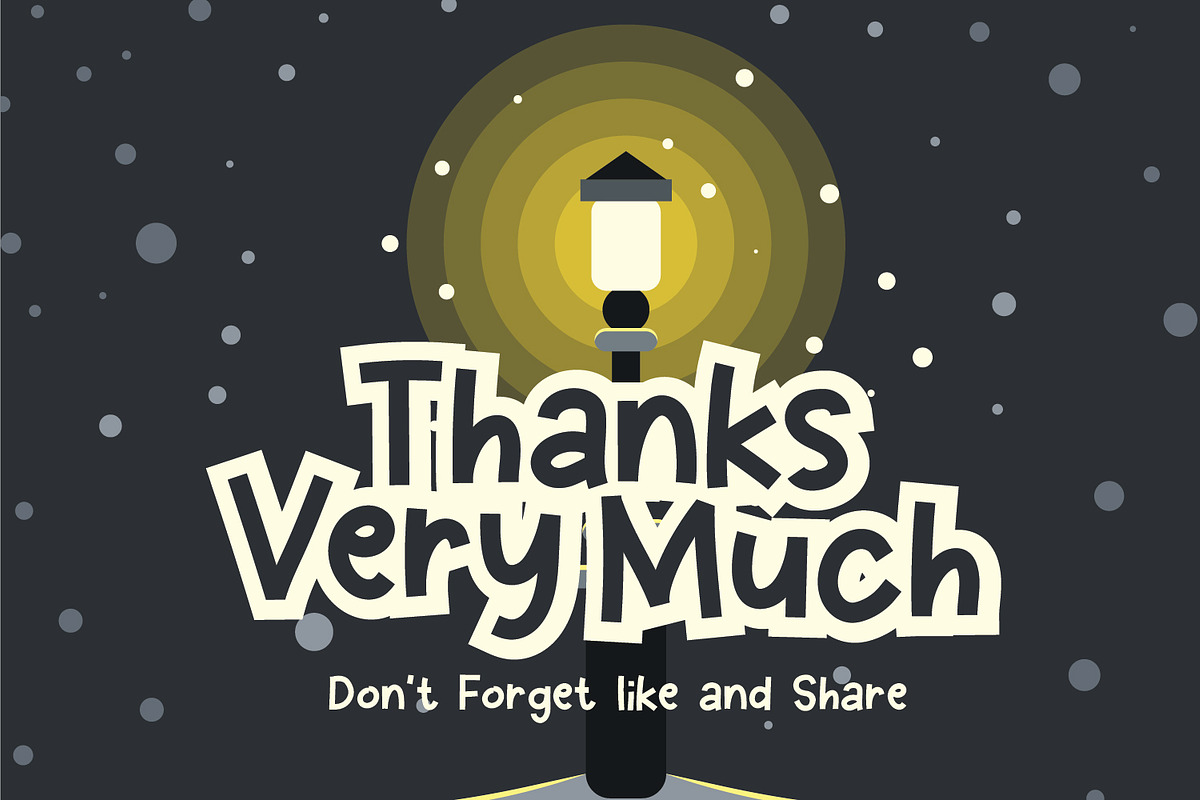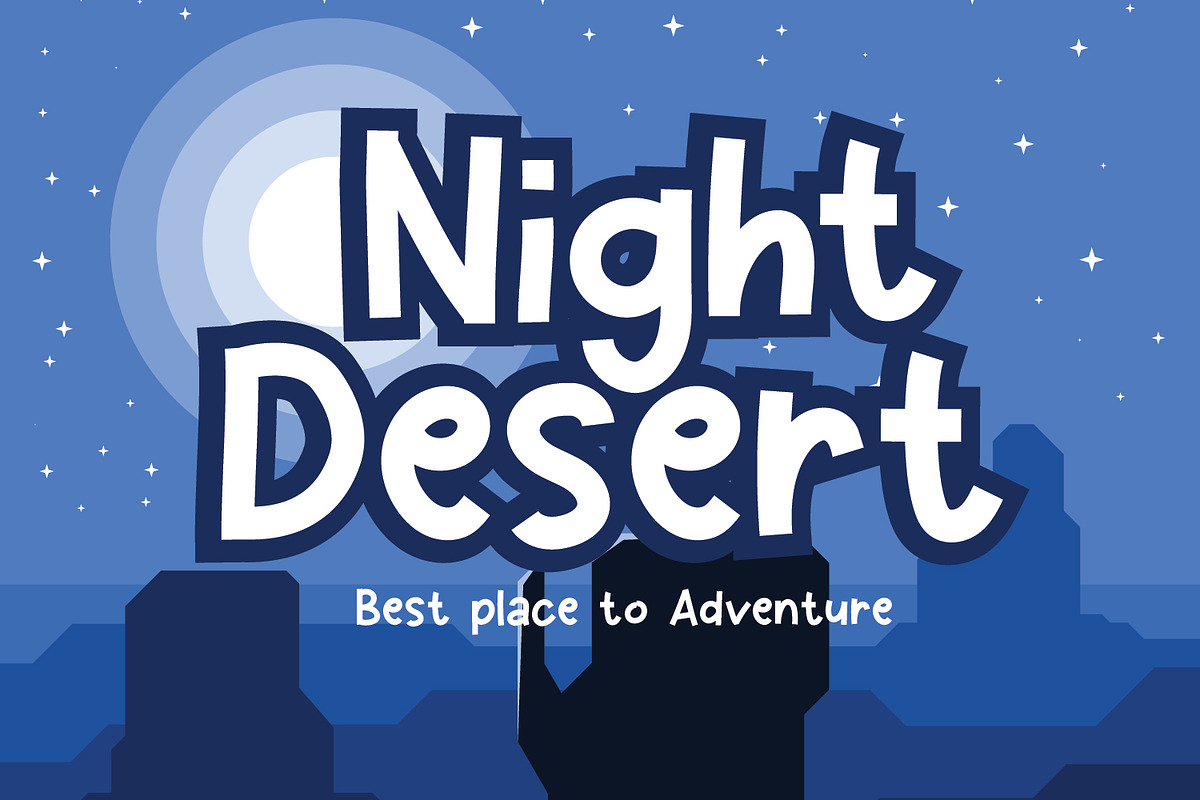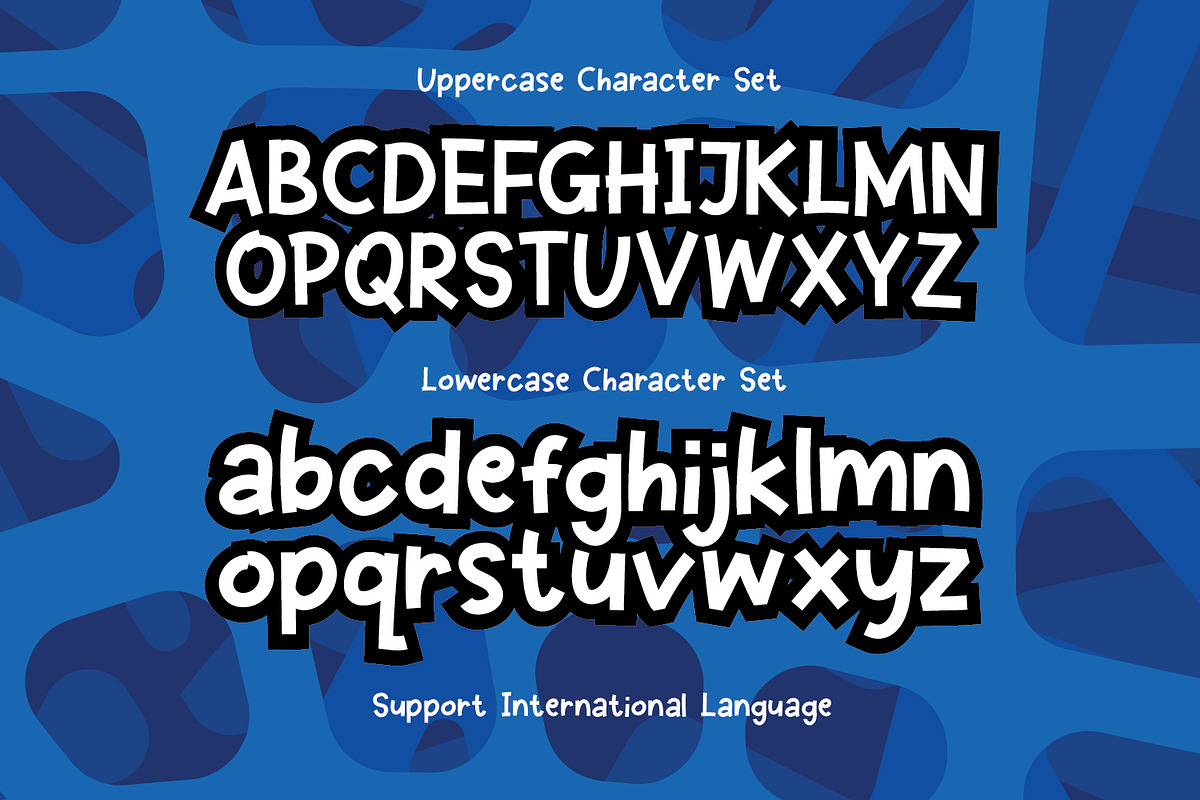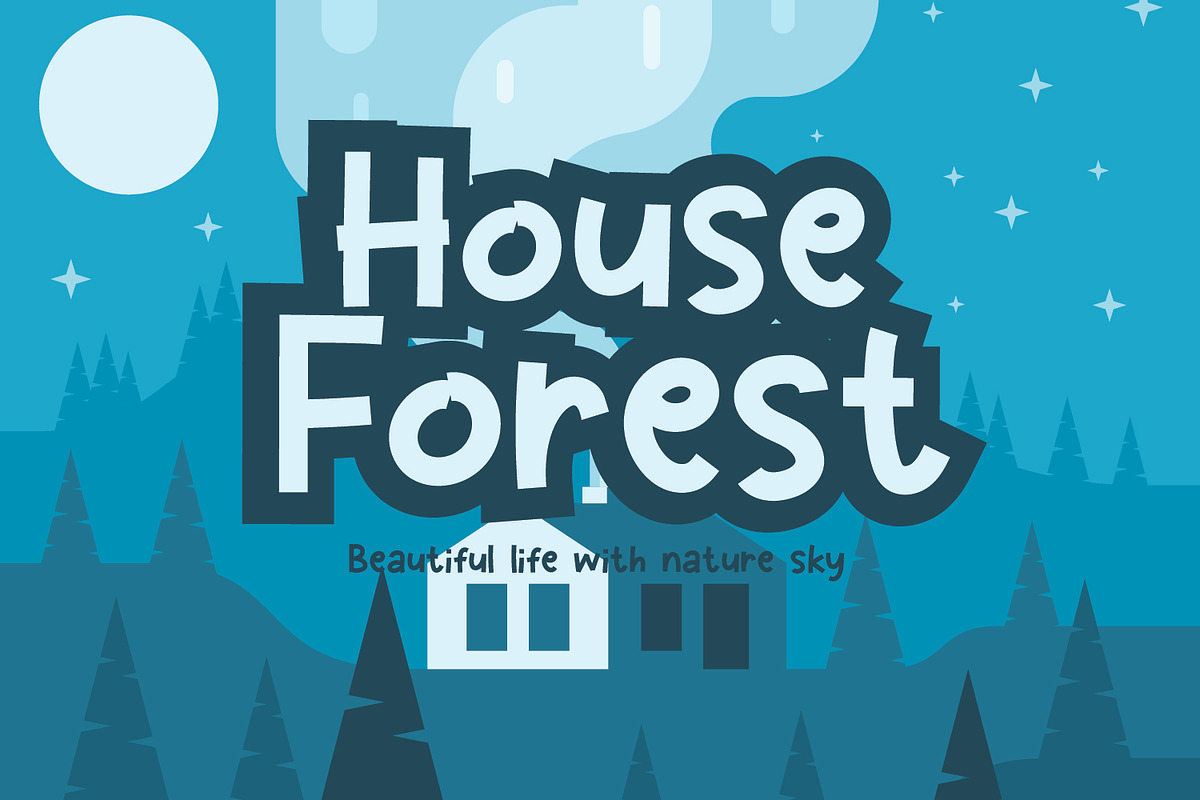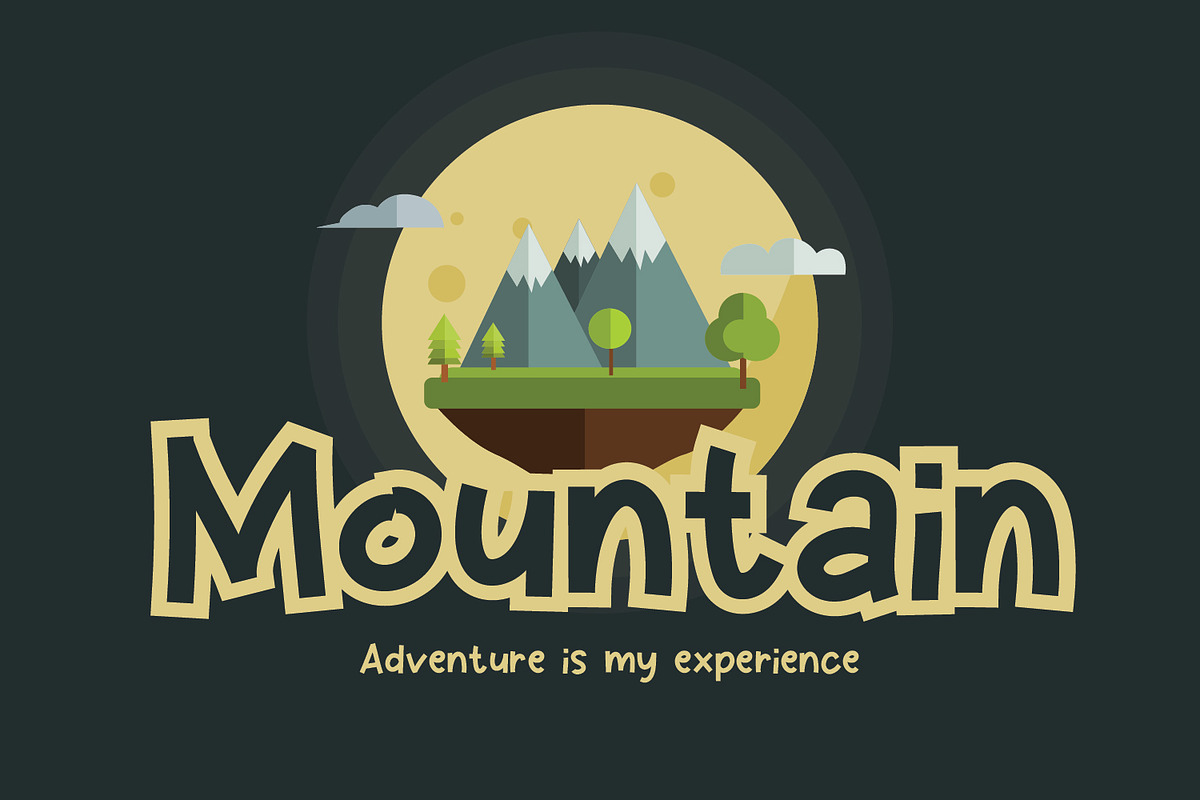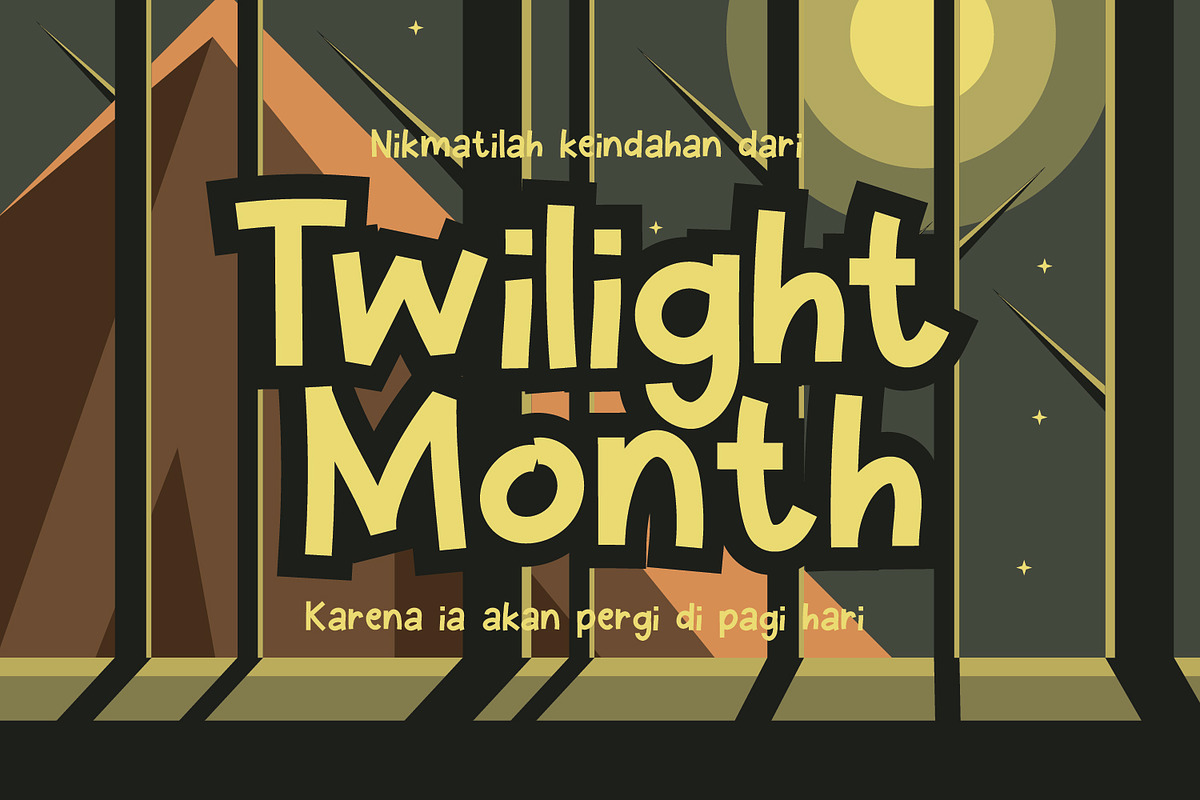
Secret Thief - A Cute Sans Font
We bring back cute fonts. This funny font is formed from a unique style of letters. Hope you like it. it's perfect for logos, name card, magazine layouts, invitations, headers, or even large-scale artwork.
1. Secret Thief- A Cute sans serif font including upper & lowercase characters, numerals and more of symbols.
2. Multilingual support for various languages